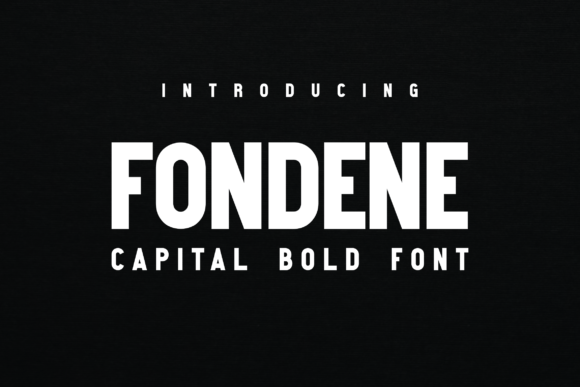
Introducing Fondene Font, the perfect choice for your business forms! Created by Wontenart, this display font features block capital letters from the sans serif family, offering a unique and eye-catching design that is sure to captivate your audience.
With its easy-to-read style and impressive strength, Fondene Font is the ultimate tool for enhancing your professional documents. Whether you're working on proposals, cover letters, state documents, certificates, passports, power of attorney, or property assets, this font will elevate your content to new heights.
Imagine the impact your documents will have with the bold and commanding presence of Fondene Font. Its thicker and bigger display adds a touch of sophistication and professionalism, setting you apart from the competition. Watch as your audience is instantly drawn to your business forms, impressed by the attention to detail and commitment to excellence.
But Fondene Font doesn't stop at business forms. Its versatility extends to various design needs, making it the perfect choice for logos and other creative projects. With its strong and distinct letterforms, this font will leave a lasting impression on your audience, ensuring that your brand stands out in a crowded marketplace.
Don't settle for mundane and ordinary fonts that fail to capture the essence of your business. Fondene Font is here to elevate your content and convey your message with style and confidence. Its captivating presence will evoke emotions and engage your audience, leaving a lasting impact long after they've interacted with your materials.
Embrace the power of Fondene Font and unlock a world of possibilities for your business forms and design projects. Let its captivating and informative nature speak on your behalf, delivering your message with grace and clarity.